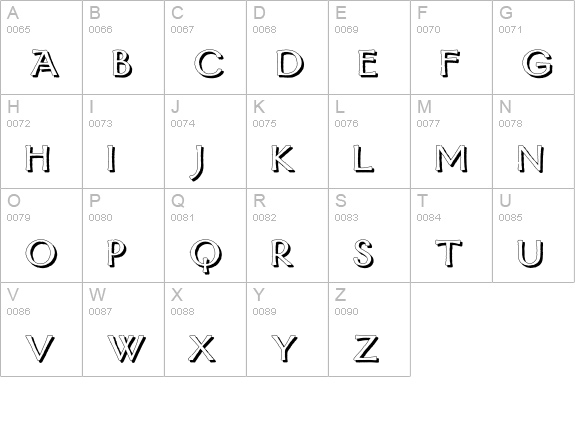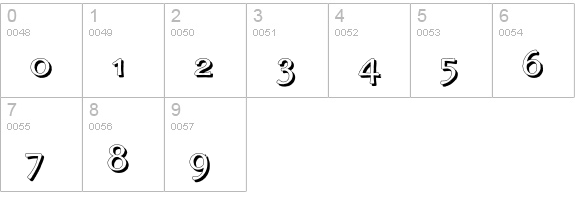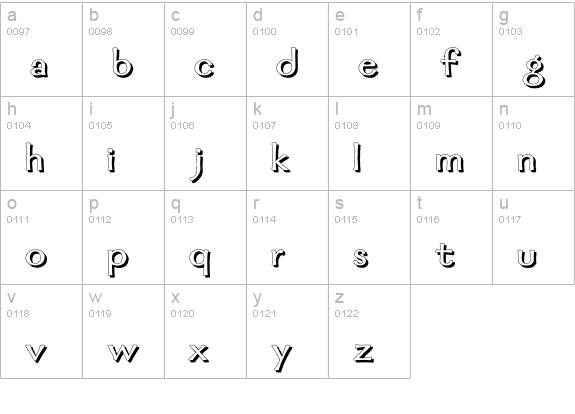
MordredShadow-Bold Font Details
MordredShadow-Bold is a strong, high-contrast variant in the MordredShadow typeface family \xE2\x80\x94 well suited to headlines, attention-grabbing titles, and strong calls-to-action.
MordredShadow-Bold is a striking and bold display font designed to make a powerful statement. Its sharp angles and dramatic shadows add a touch of mystery and intrigue to any design project. Perfect for headlines, posters, and branding materials that demand attention, this font exudes confidence and sophistication. What sets MordredShadow-Bold apart is not just its bold appearance, but also the fact that it is available for free. Yes, you read that right - this eye-catching font can be downloaded for free at FontsMarket.com. Whether you're a professional designer looking to add a unique touch to your work or a casual user in need of a standout font for personal projects, MordredShadow-Bold is a great choice that won't cost you a dime. Download it today and unleash its bold charm in your creations!